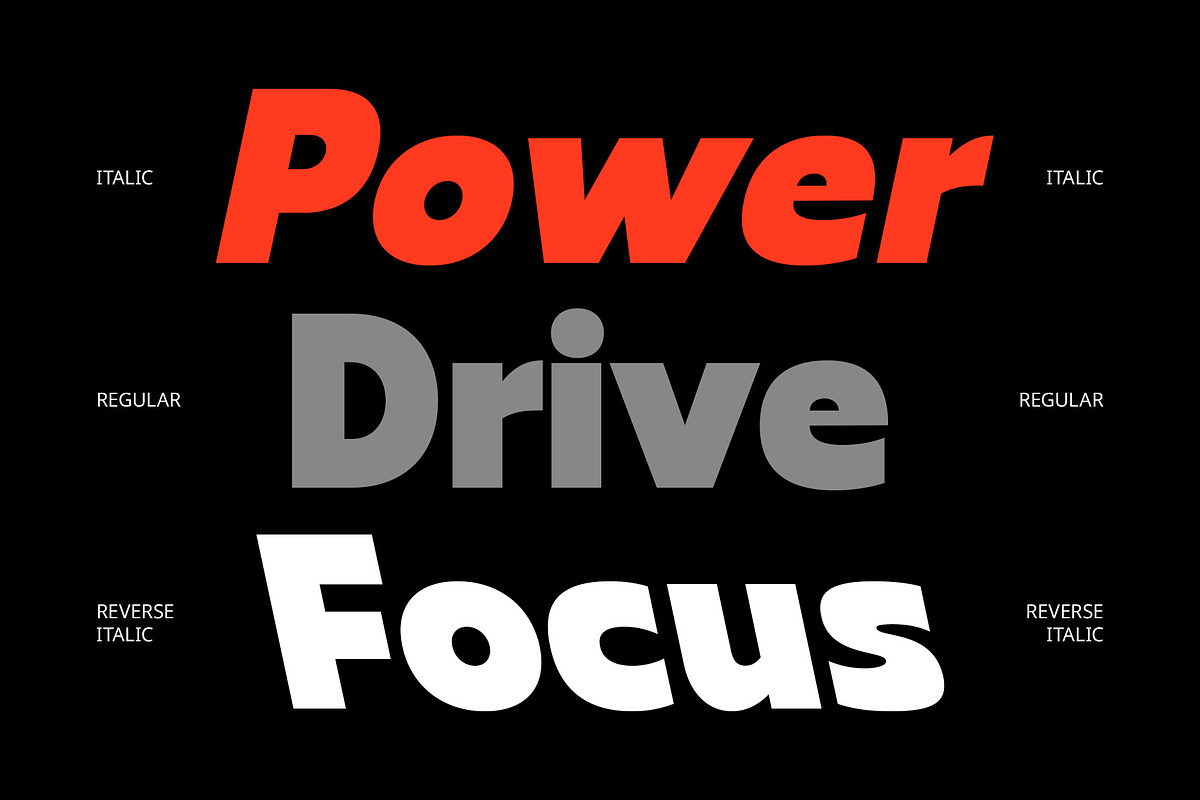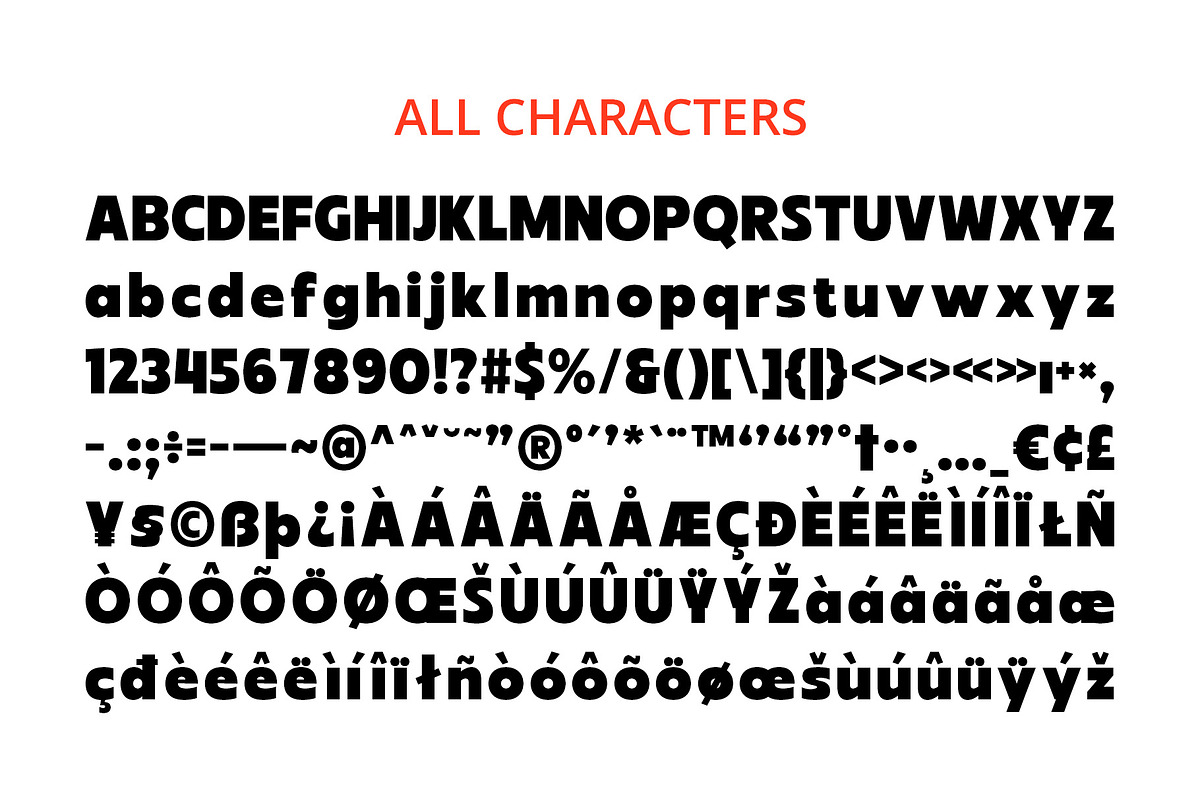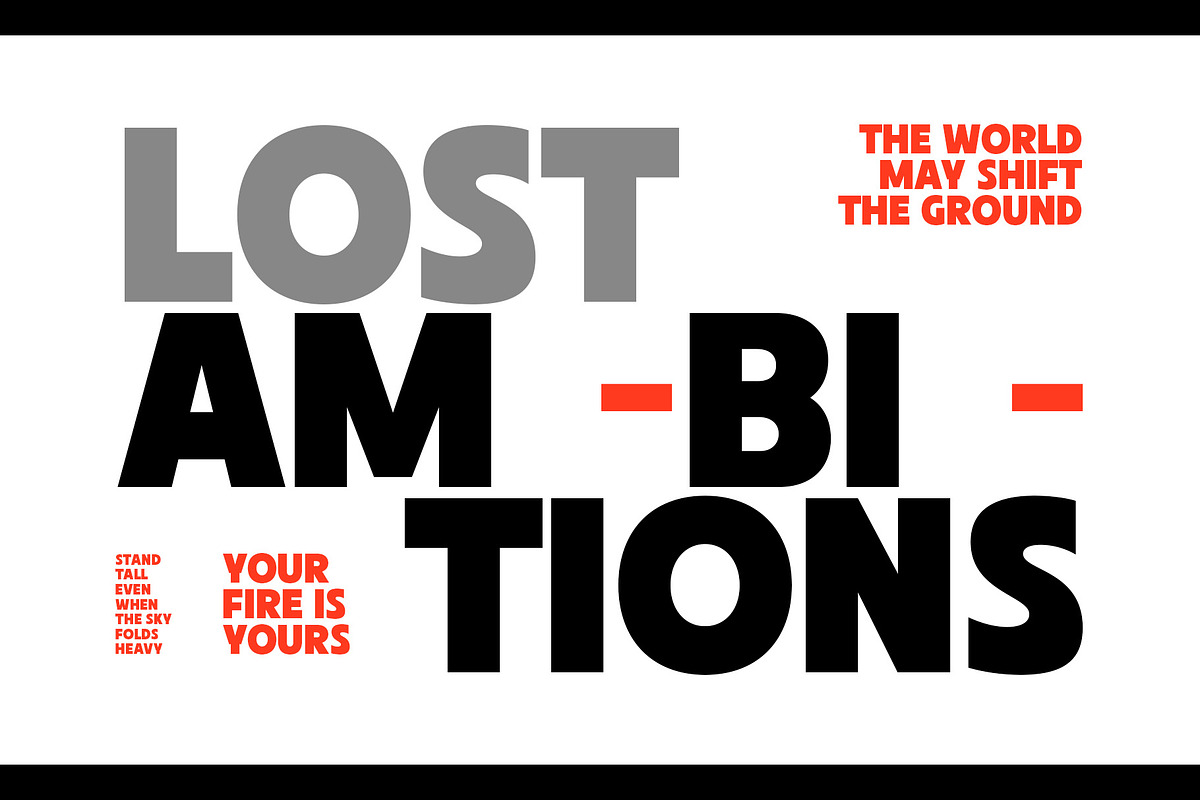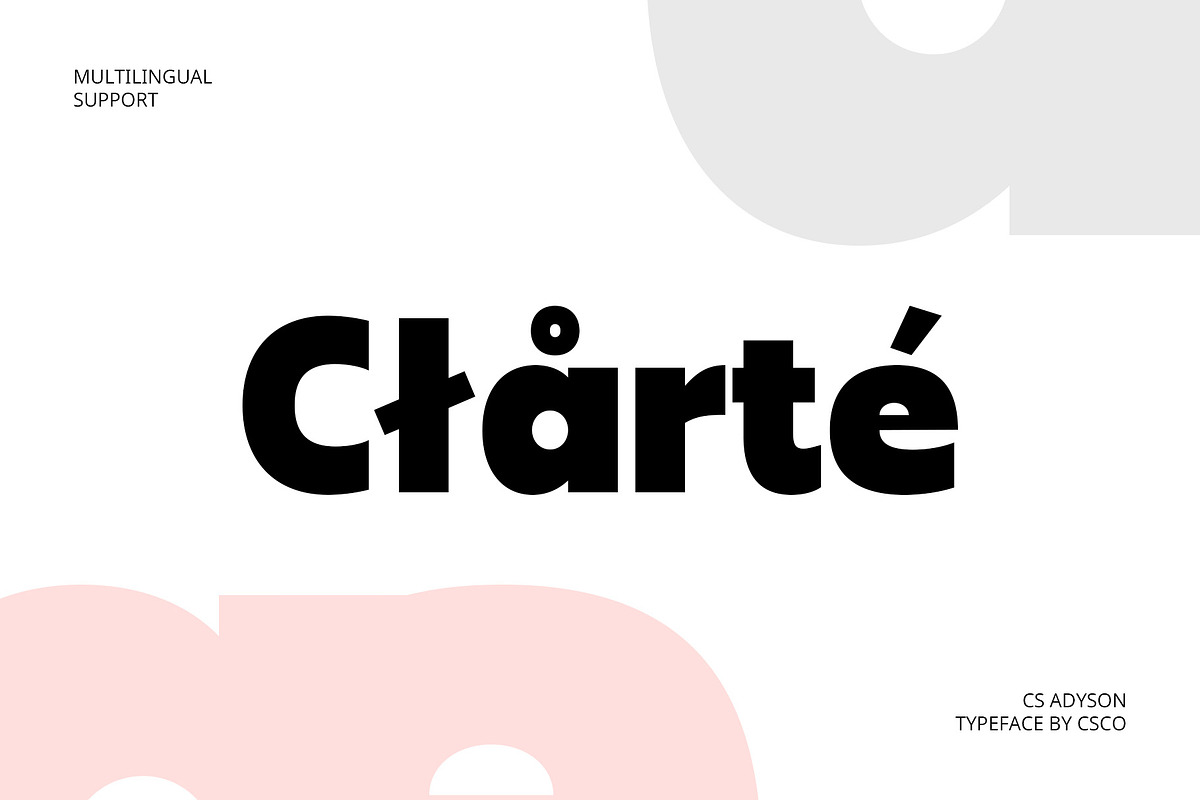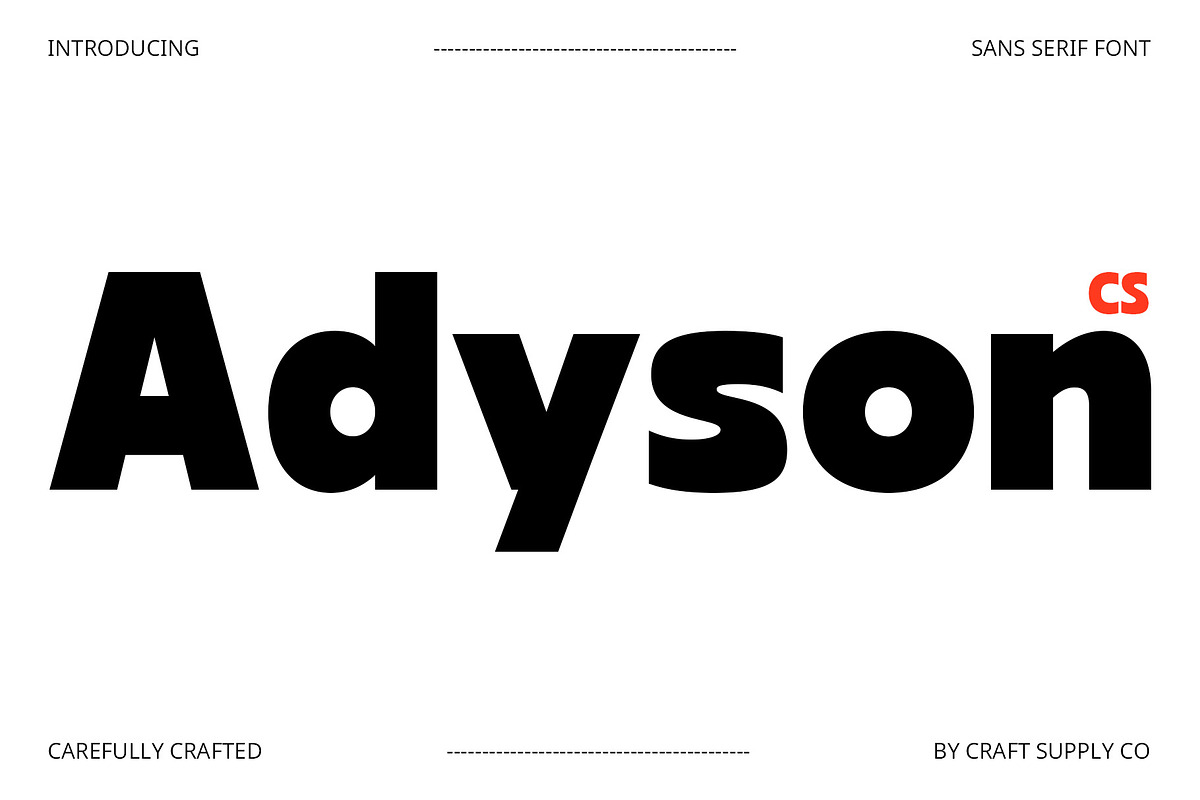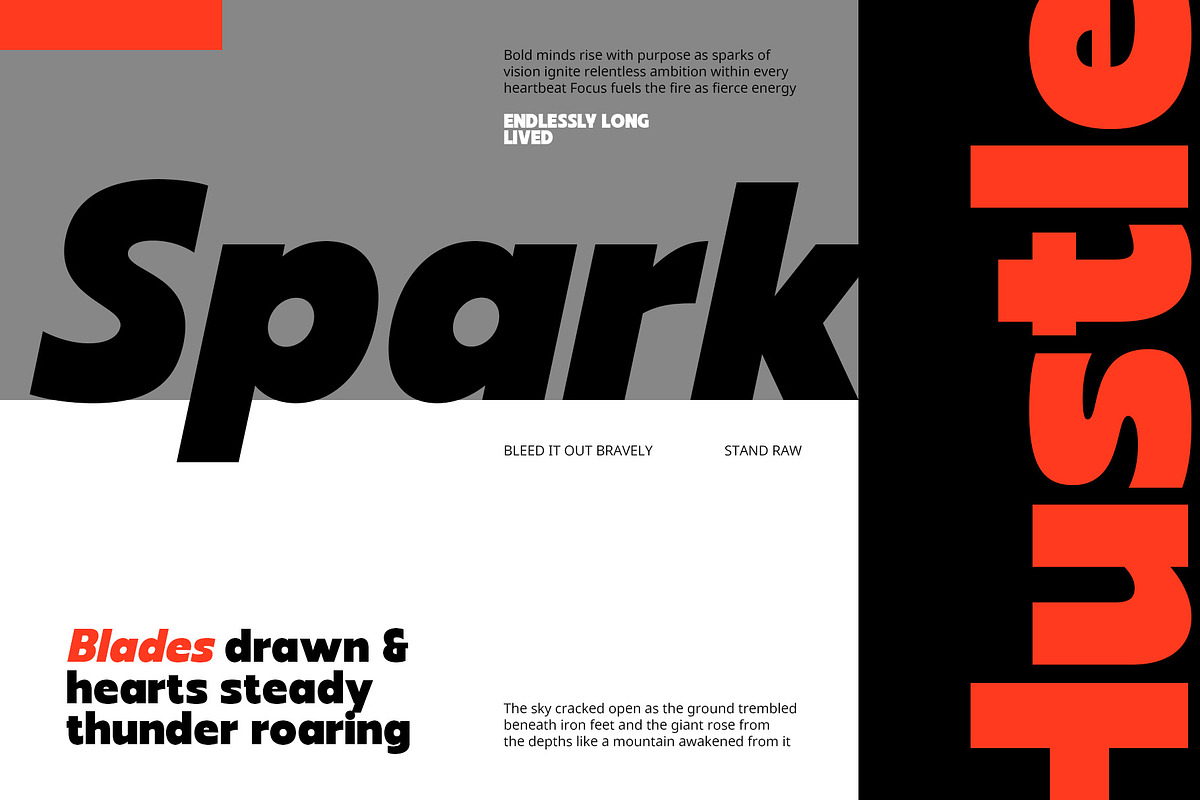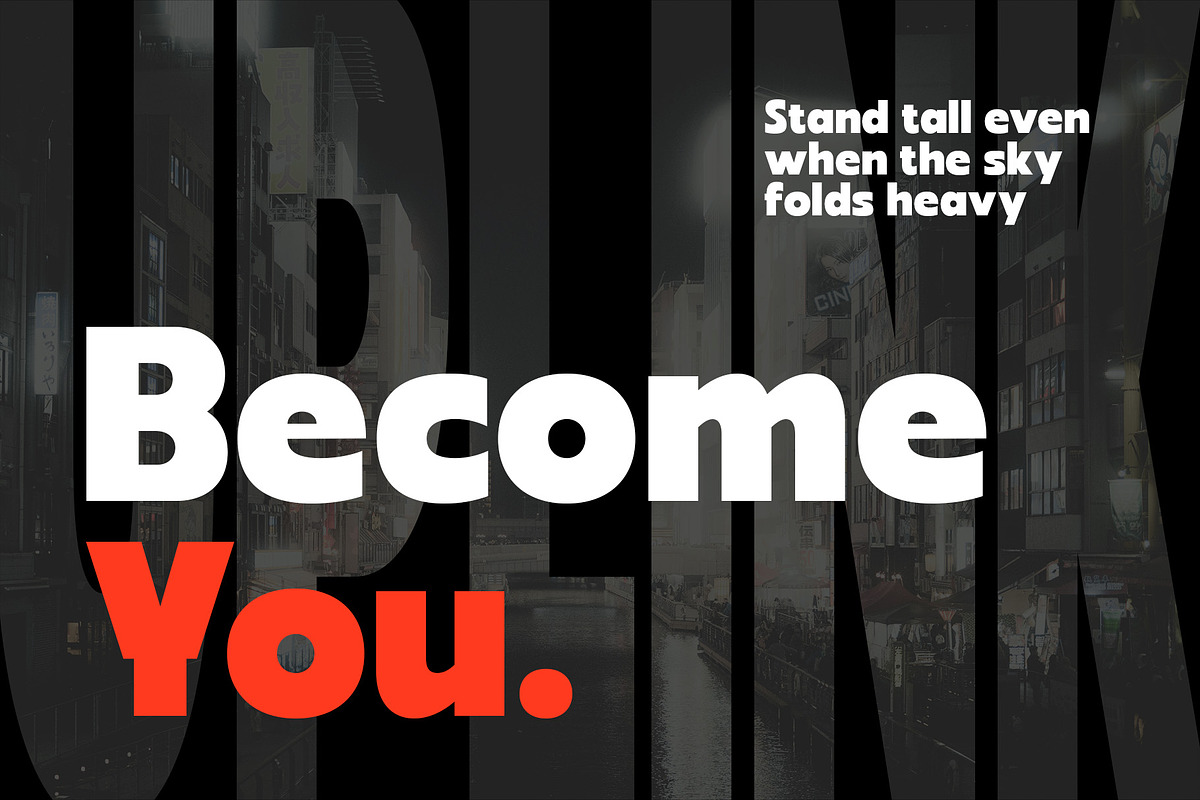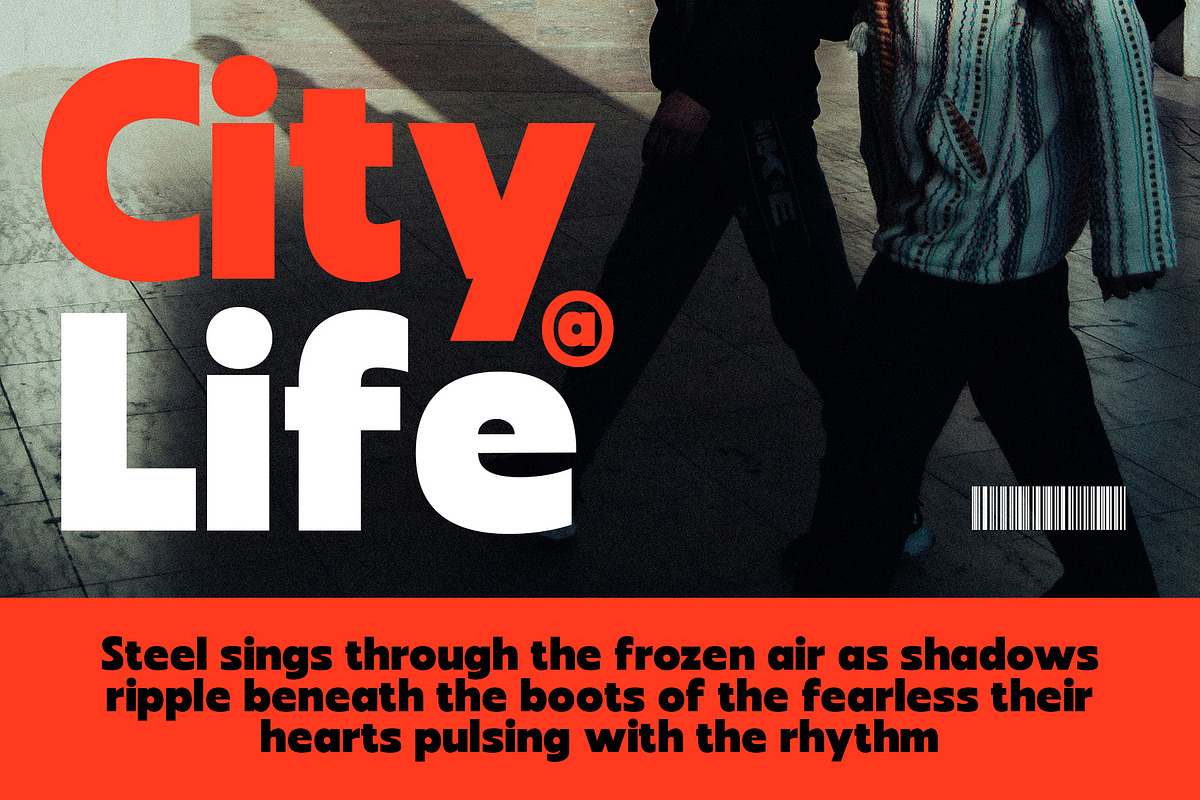
CS Adyson – Bold Font
CS Adyson – A Bold Sans-Serif Font for Modern Corporate Impact
Strong, Minimalist, and Confident CS Adyson is a modern bold sans-serif font that embodies clarity, strength, and professionalism. With its solid structure and clean, geometric forms, this typeface delivers a visual punch that commands attention without unnecessary flair. Its design strikes a balance between minimalism and presence.
Designed for Business Clarity and Brand Presence Every letter in CS Adyson is carefully constructed with proportional spacing and clean lines, ensuring high readability across print and digital formats. Its bold weight reinforces a sense of authority and trust, ideal for corporate branding, logos, product packaging, pitch decks, and any professional setting that values consistency and visual impact.
Reliable Aesthetic for a Modern World CS Adyson gives off a reliable and forward-thinking tone, making it a go-to choice for businesses and designers who seek a contemporary yet timeless look. Whether you’re building a tech brand, launching a product, or designing a brand identity, this font projects a sense of stability, leadership, and sophistication.
Versatile Across Media and Platforms From print materials to UI elements, CS Adyson adapts seamlessly. Its boldness makes headlines stand out, while its structured simplicity ensures clarity in long-form applications. This adaptability makes it a powerful tool for modern branding and design across a wide range of industries.
- CS Adyson Regular
- CS Adyson Italic
- CS Adyson Reverse Italic